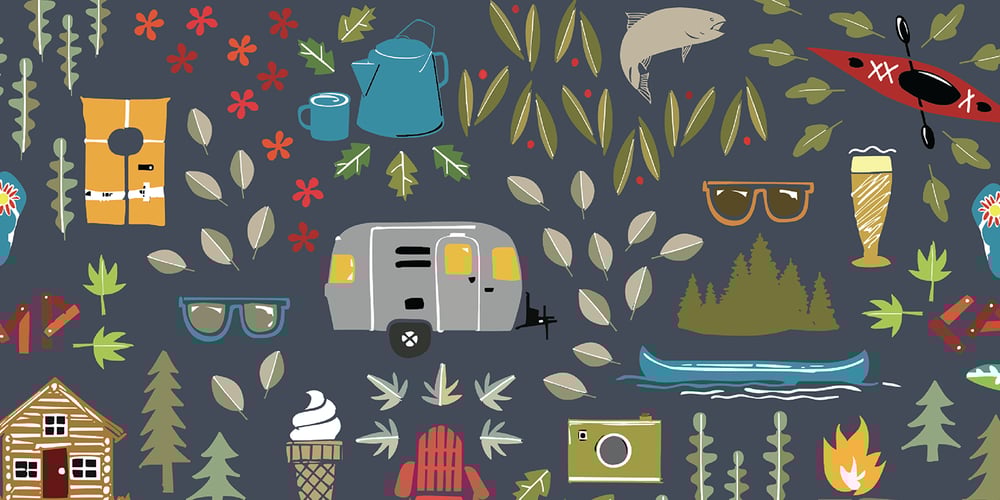
Lake Vacation Doodles
Lake Vacation Doodles font
Lake Vacation Doodles Font Family was designed by Rae Kaiser and published by Outside the Line. Lake Vacation Doodles contains 1 styles and family package options. Lake Vacation Doodles for your camping, sailing, picnicking Summertime vacation needs. With these little graphics your party invitations just design themselves. Add an Outside the Line hand lettered font and you are good to go.